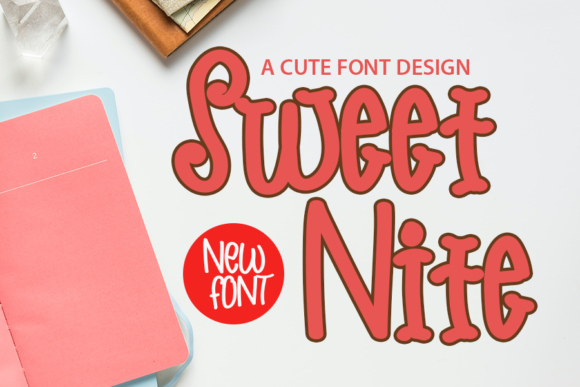
Sweet Nite Font: Add a Joyful Touch to Your Designs
In the world of typography, fonts play a crucial role in conveying the tone and personality of a design. When it comes to creating visually appealing and engaging content, the right font can make all the difference. If you’re looking for a font that can add a touch of joy and whimsy to your designs, look no further than Sweet Nite Font. In this article, we’ll explore the features and benefits of Sweet Nite Font, and how it can elevate your creative projects.
What is Sweet Nite Font?
Sweet Nite Font is a cute and quirky display font designed to bring a sense of joy and playfulness to your designs. With its unique and eye-catching style, this font is perfect for adding a touch of personality to your creative projects. Whether you’re working on a graphic design, branding, or advertising project, Sweet Nite Font is sure to make it stand out.
Key Features of Sweet Nite Font
- Cute and Quirky Design: Sweet Nite Font boasts a unique and playful design that’s sure to capture the attention of your audience.
- Display Font: This font is specifically designed for display purposes, making it perfect for headlines, titles, and other prominent text elements.
- Easy to Read: Despite its playful design, Sweet Nite Font is easy to read, even at smaller sizes.
- Versatile: This font can be used in a variety of design contexts, from graphic design and branding to advertising and packaging.
Tips for Using Sweet Nite Font in Your Designs
To get the most out of Sweet Nite Font, here are a few design tips to keep in mind:
- Use it as a Headline Font: Sweet Nite Font is perfect for headlines and titles, where its playful design can really shine.
- Pair it with a Simple Font: For body text, pair Sweet Nite Font with a simple, easy-to-read font to create visual contrast.
- Experiment with Colors: Sweet Nite Font looks great in a variety of colors, so don’t be afraid to experiment and find the perfect hue for your design.
- Use it to Add Personality: Sweet Nite Font is all about adding personality to your designs, so don’t be afraid to get creative and have fun with it!
The Benefits of Using Sweet Nite Font
So why should you choose Sweet Nite Font for your designs? Here are just a few benefits of using this unique and playful font:
- Stand out from the Crowd: With Sweet Nite Font, you can create designs that truly stand out from the crowd and grab the attention of your audience.
- Add a Touch of Personality: This font allows you to add a touch of personality and whimsy to your designs, making them more engaging and memorable.
- Versatile: This font can be used in a wide range of design contexts, from graphic design and branding to advertising and packaging.
| Font Style | Display Font |
In conclusion, Sweet Nite Font is a unique and playful display font that’s perfect for adding a touch of joy and personality to your designs. With its cute and quirky design, ease of use, and versatility, this font is sure to become a favorite in your design toolkit. So why wait? Download Sweet Nite Font today and start creating designs that stand out from the crowd!